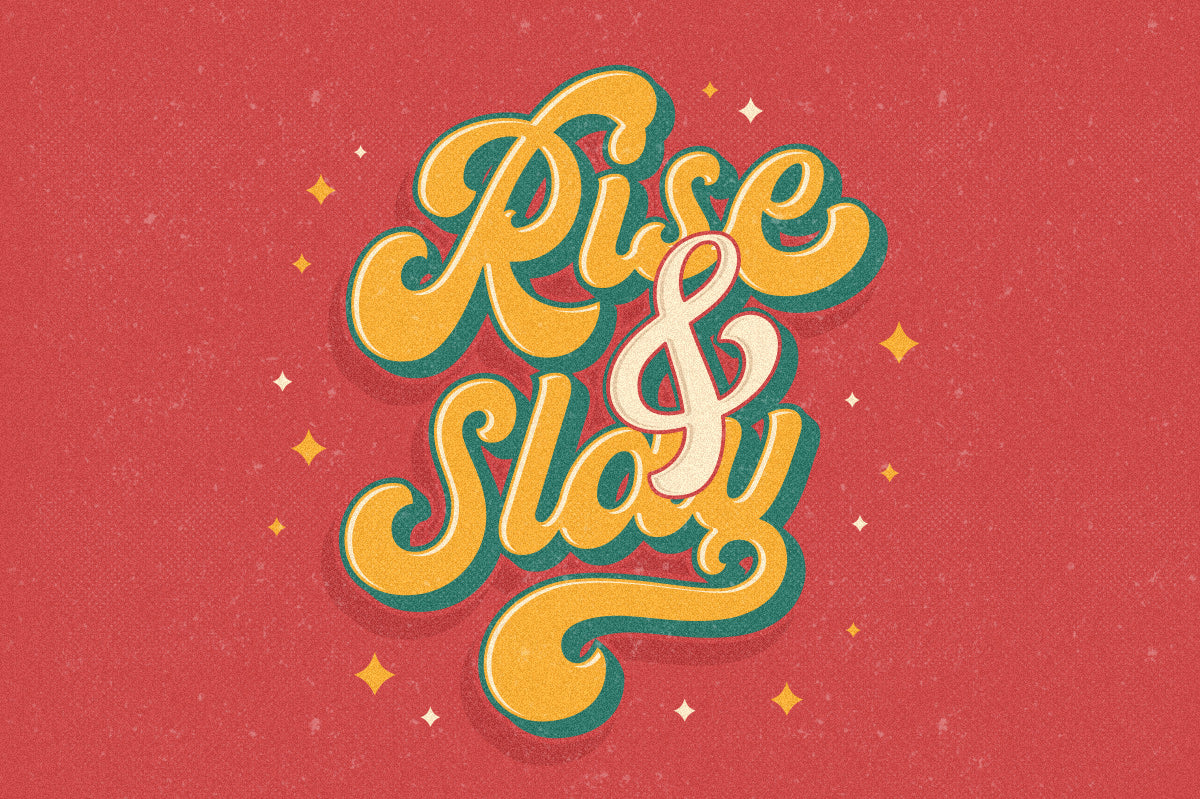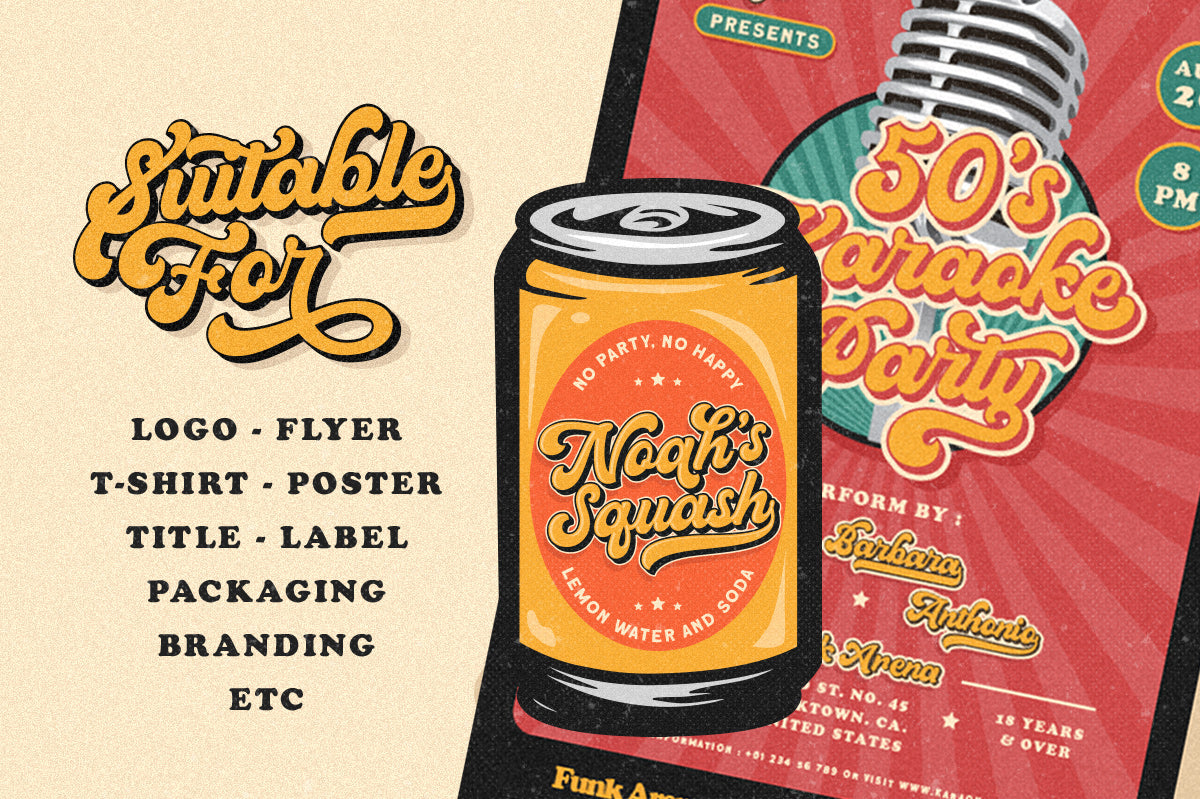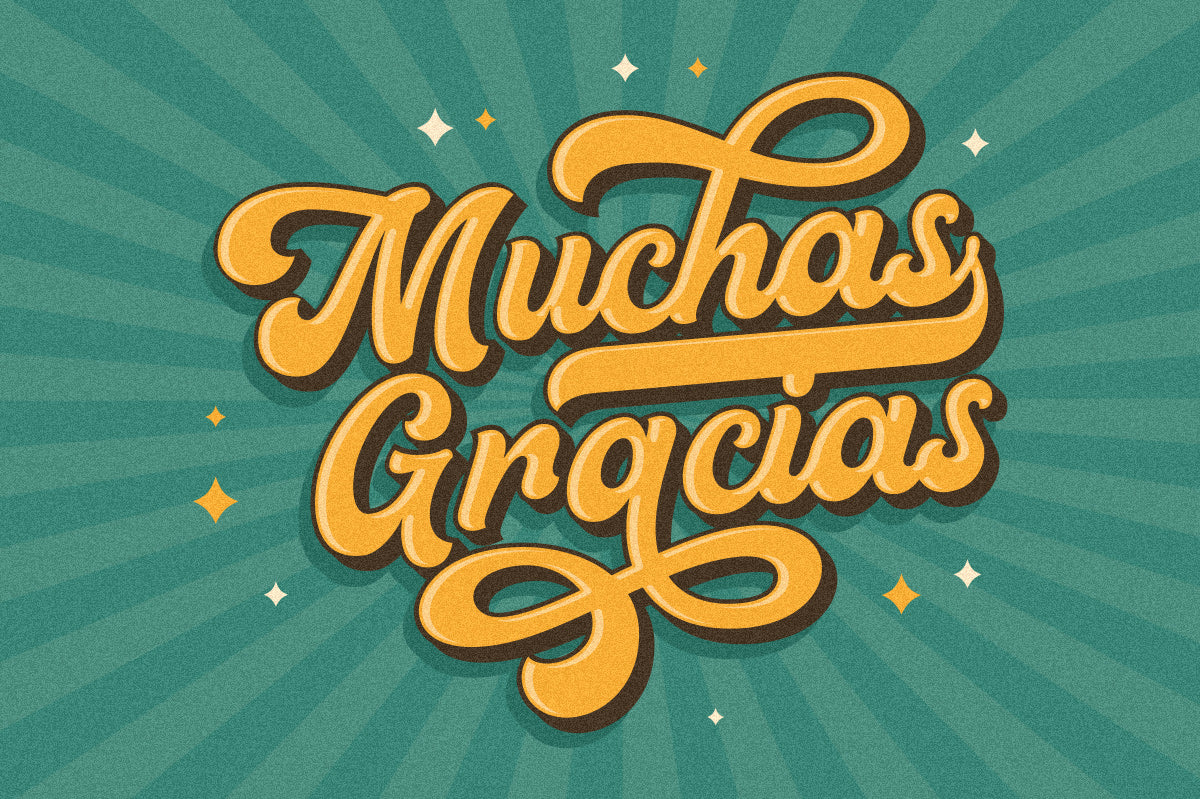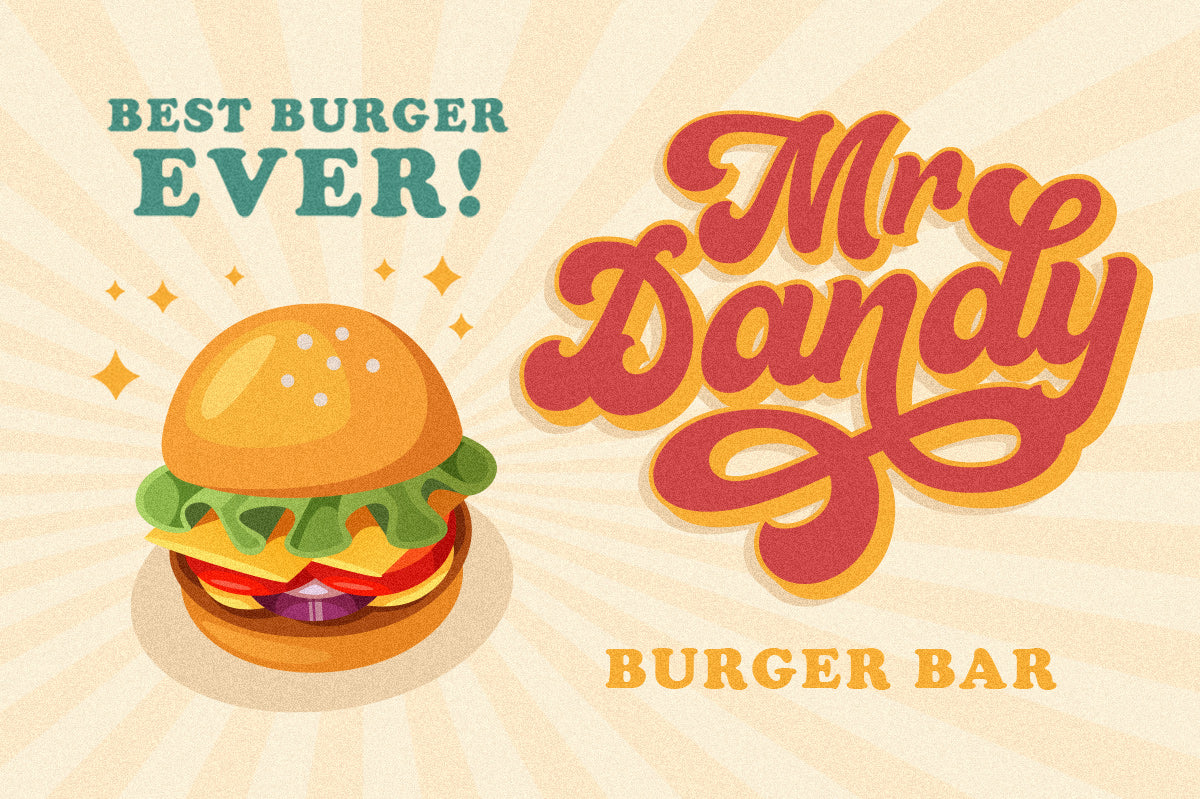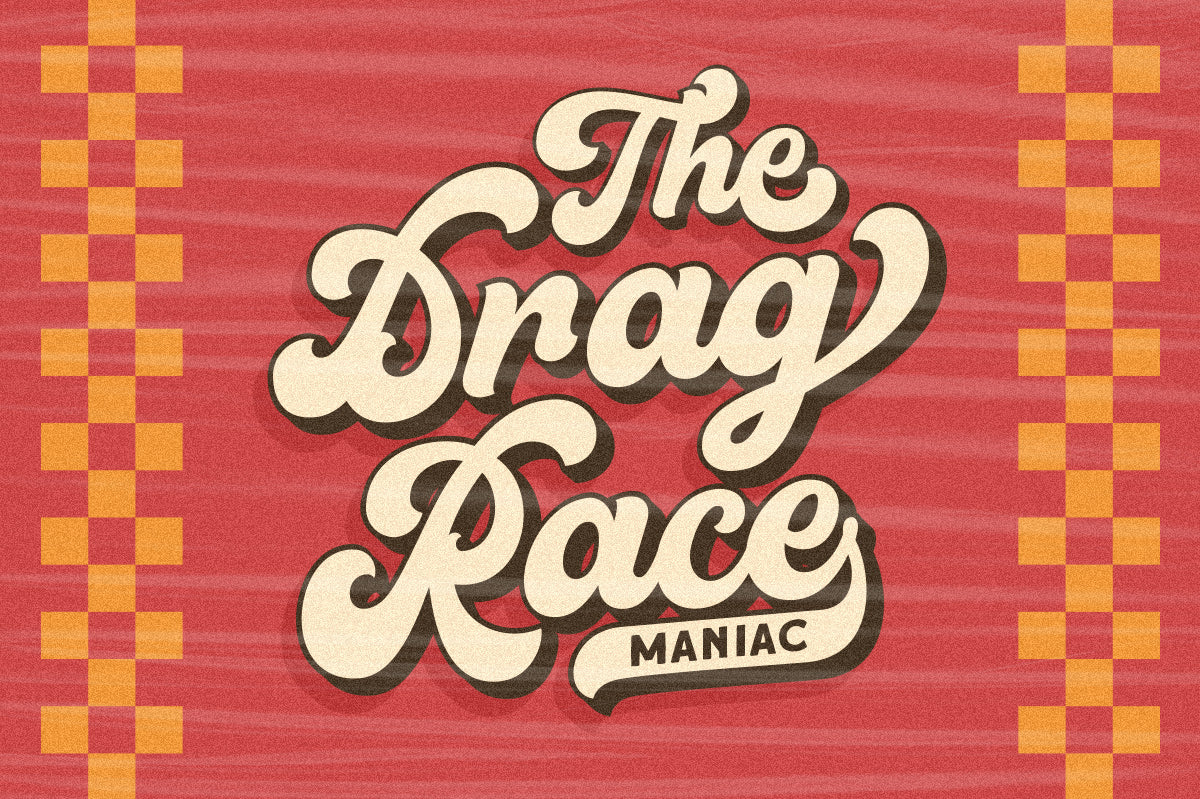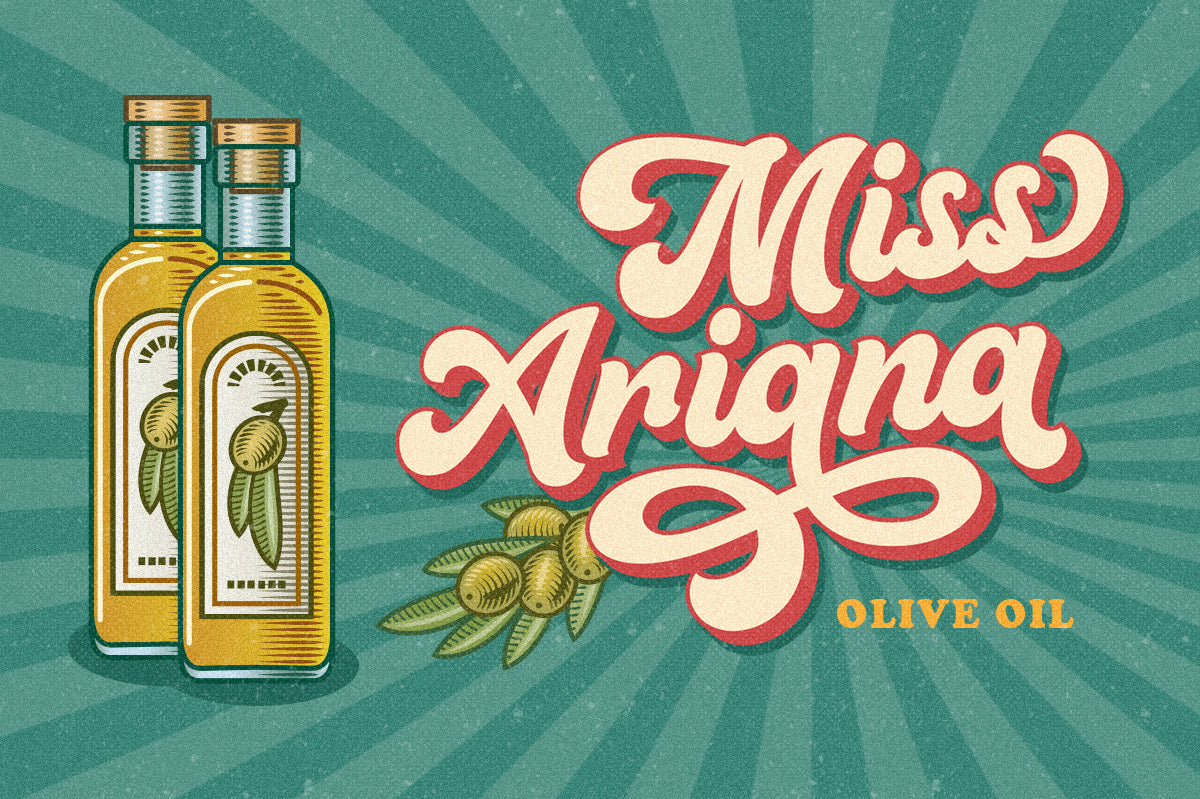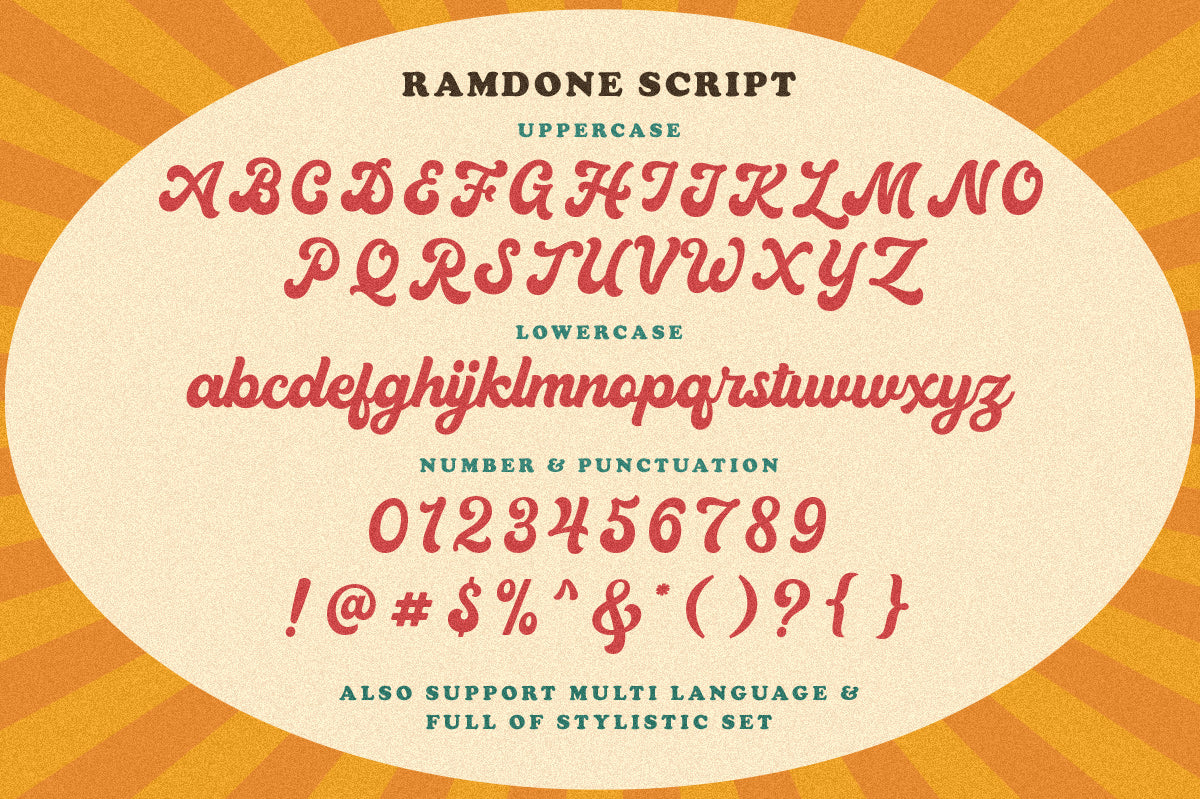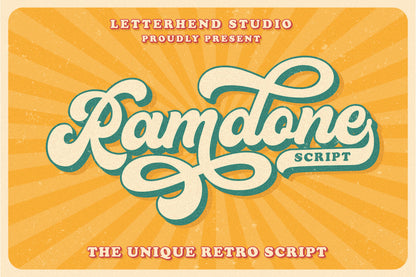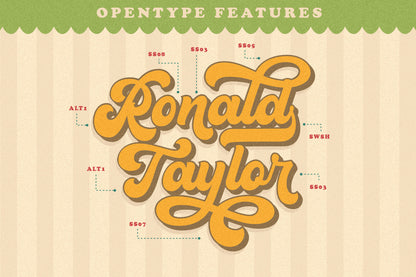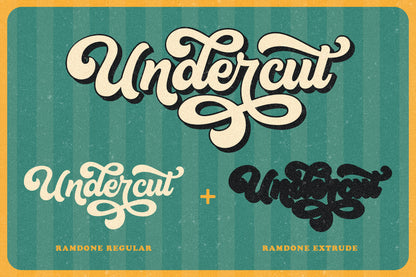
Introducing Ramdone, a retro bold script that brings the feel of the 1960s to your designs. This typeface also includes an extruded version, making it easy to create authentic retro effects.
This font is perfectly suited for use in logos and various formal applications such as invitations, labels, magazines, books, greeting or wedding cards, packaging, fashion, makeup, stationery, novels, and any advertising purpose.
Features:
uppercase & lowercase
numbers and punctuation
multilingual
ligatures
alternates
swashes